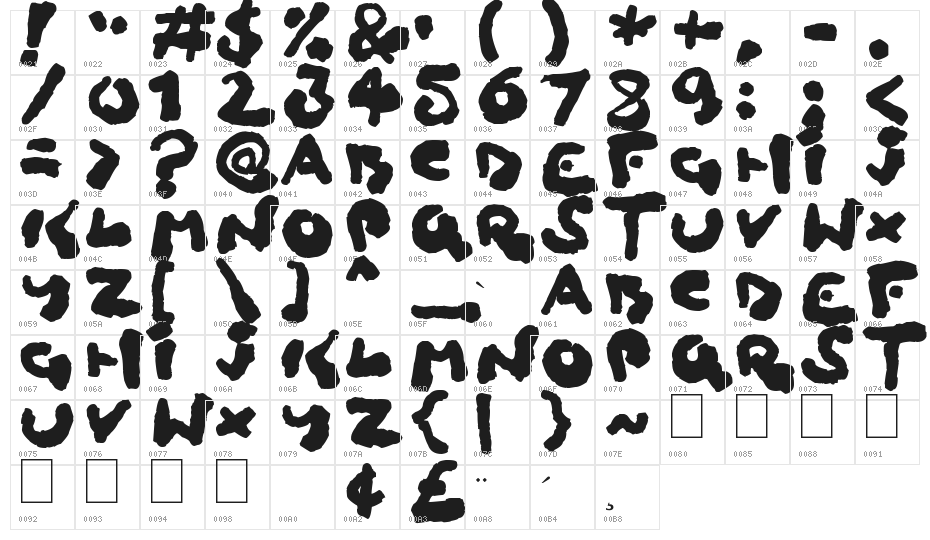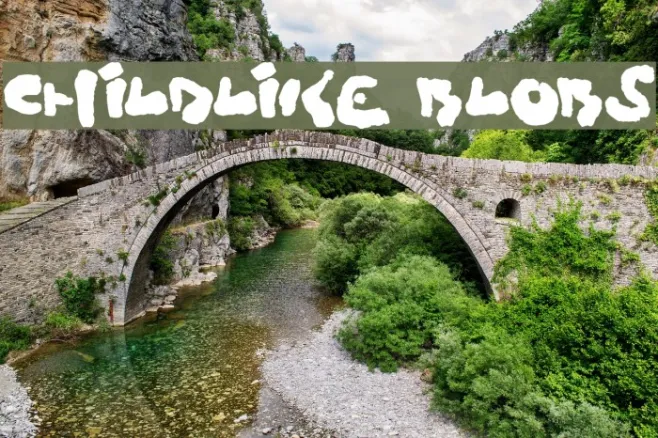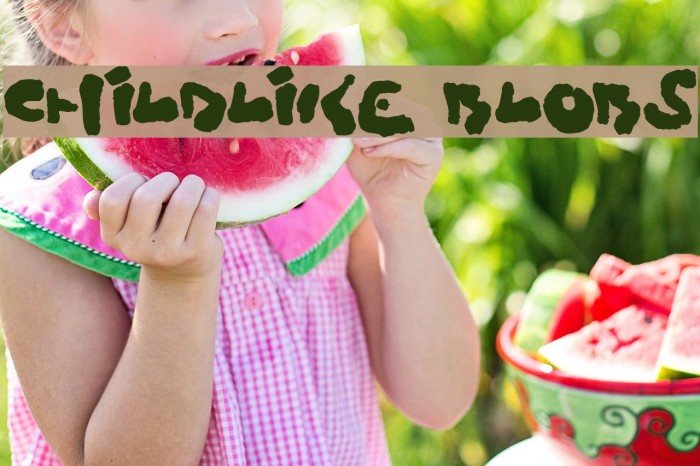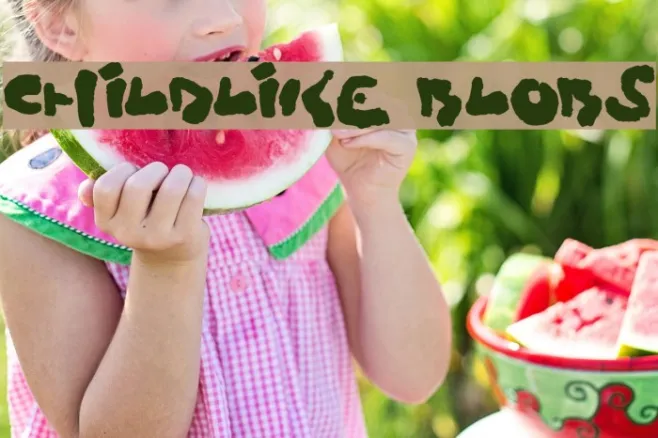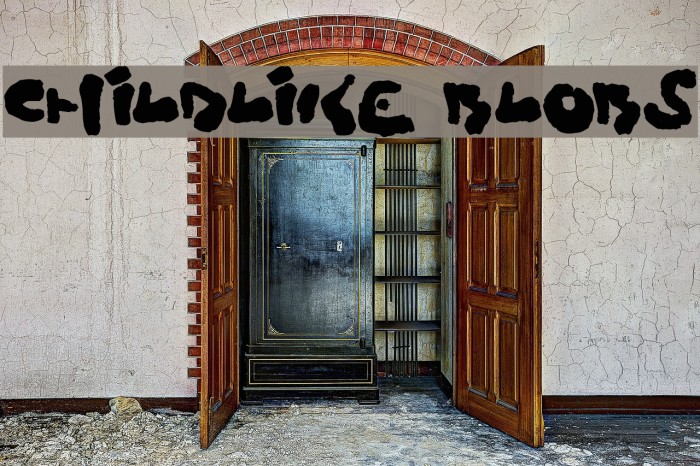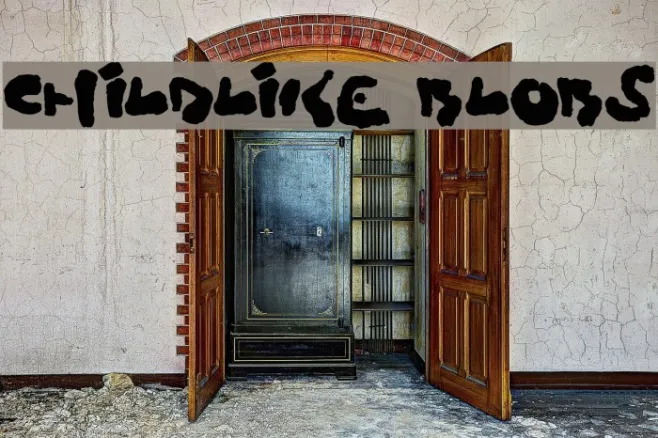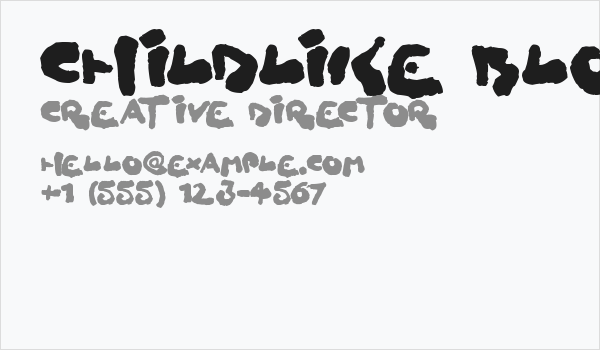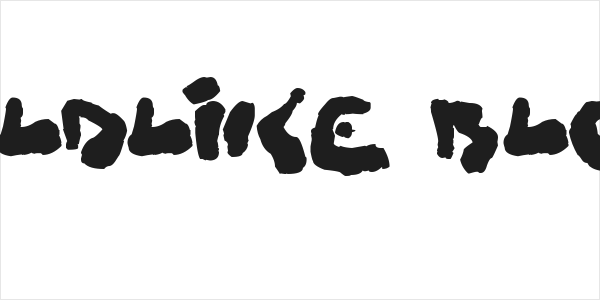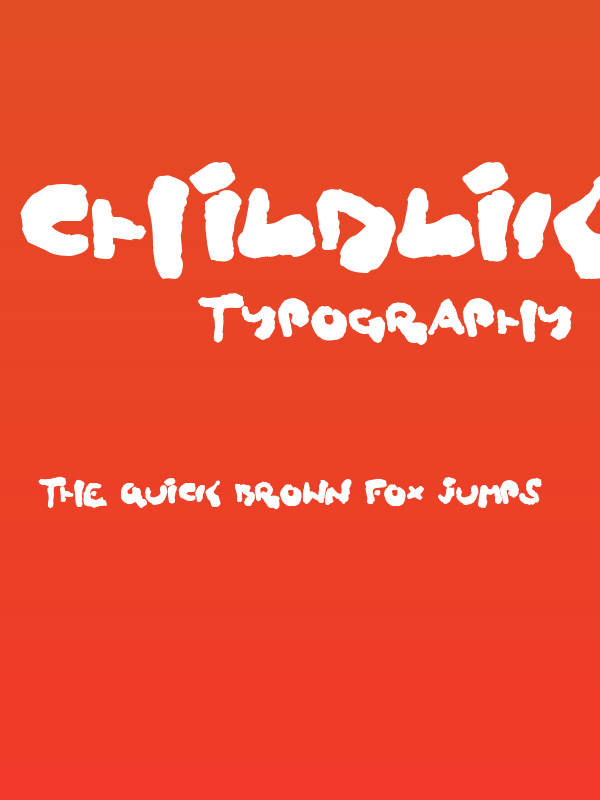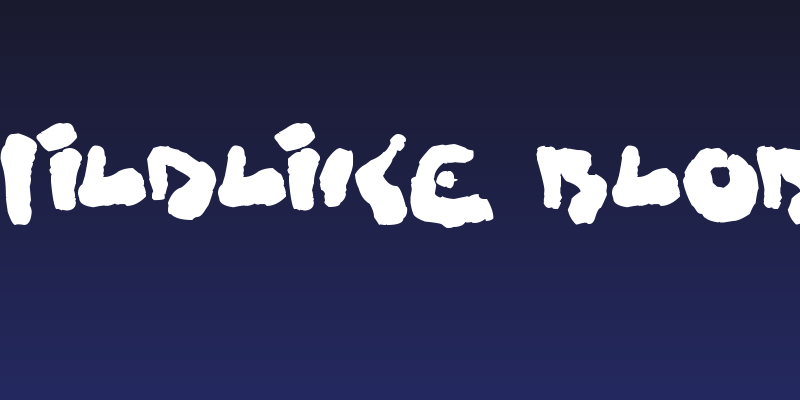
Childlike Blobs Font
Childlike Blobs Description
This playful and whimsical font features bold, irregular shapes that resemble blobs or splashes of ink. The characters have a childlike, hand-drawn quality, with uneven edges and varying thicknesses that give it a lively and dynamic appearance. The uppercase and lowercase letters maintain a consistent style, with a sense of spontaneity and creativity. Numbers and special characters follow the same playful design, making the font suitable for projects that require a fun and informal touch. The overall look is reminiscent of children's drawings or playful doodles, making it ideal for designs that aim to capture a sense of joy and imagination.